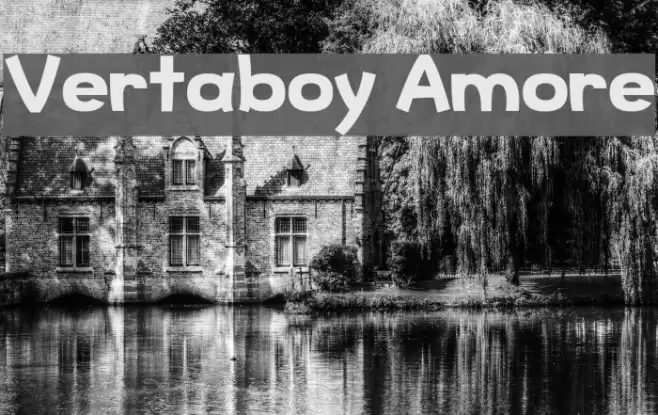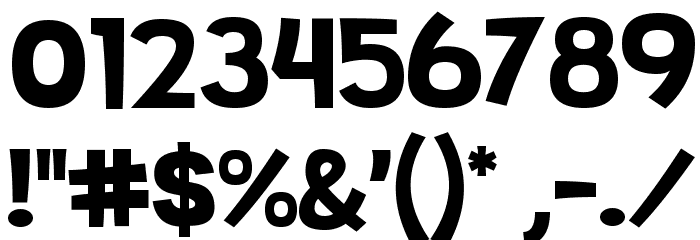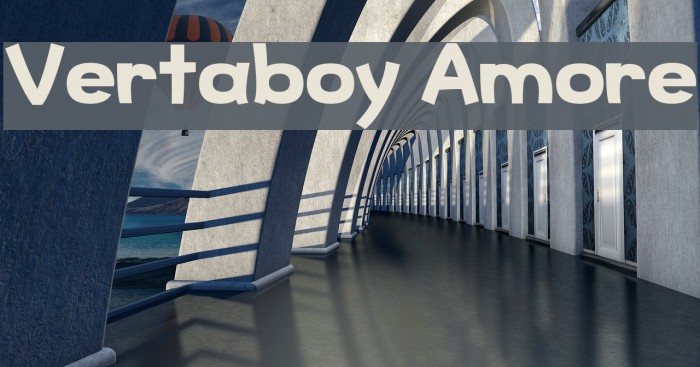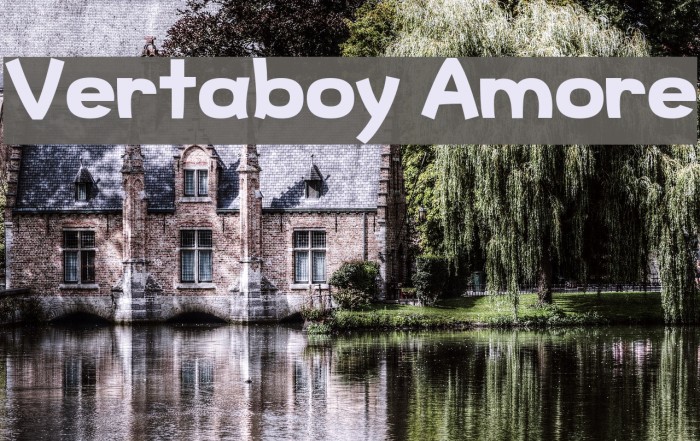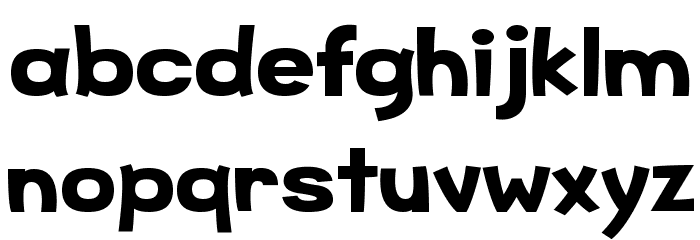
Vertaboy Amore Font
Vertaboy Amore Description
This font features a playful and bold style with a slightly irregular and whimsical appearance. The characters are thick and rounded, giving a friendly and approachable feel. The uppercase and lowercase letters maintain a consistent weight, while the numbers and special characters are designed to match the overall aesthetic. The font's boldness makes it stand out, ideal for capturing attention in various design contexts.
- Overall Style: Playful